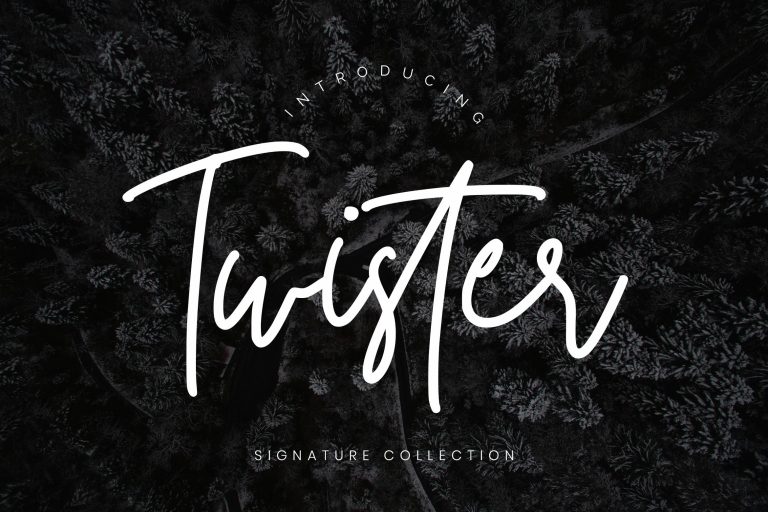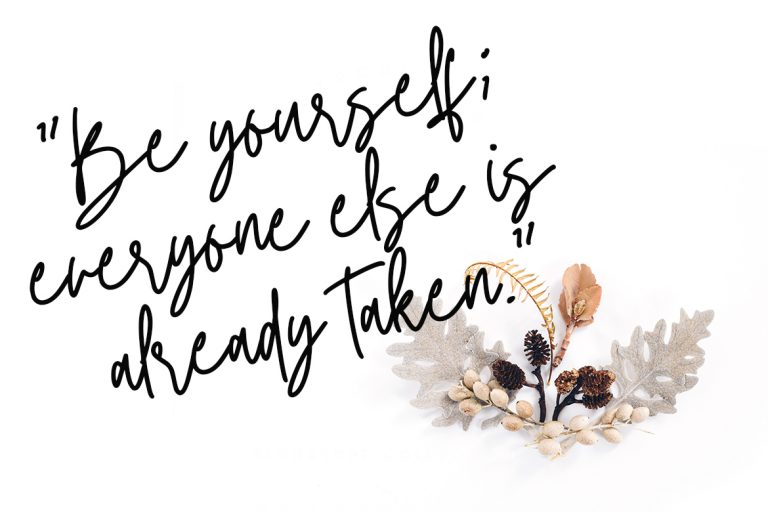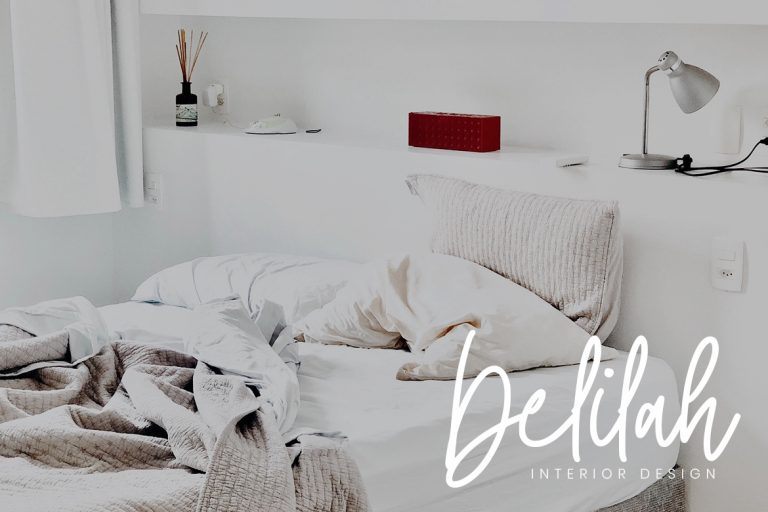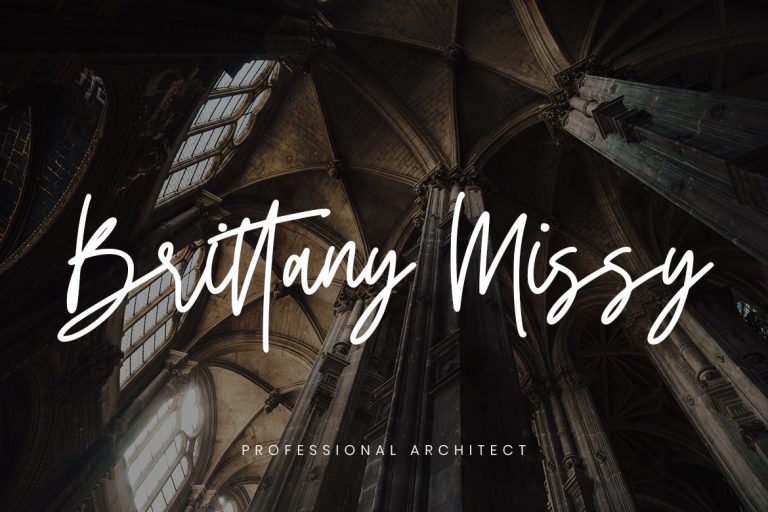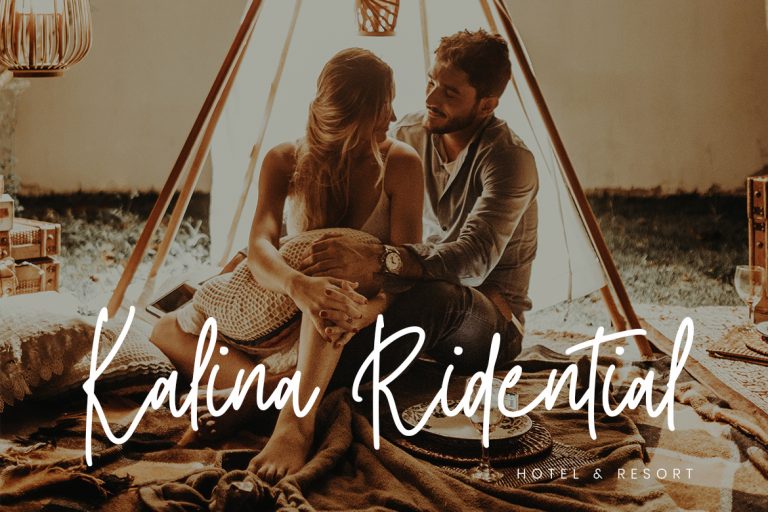
Twister made with simple and elegant hand writing will create stunning signature style.
Twister is perfect for branding projects, logo, wedding designs, social media posts, advertisements, product packaging, product designs, label, photography, watermark, invitation, stationery and any projects that need handwriting taste.
Twister Handwritten Script